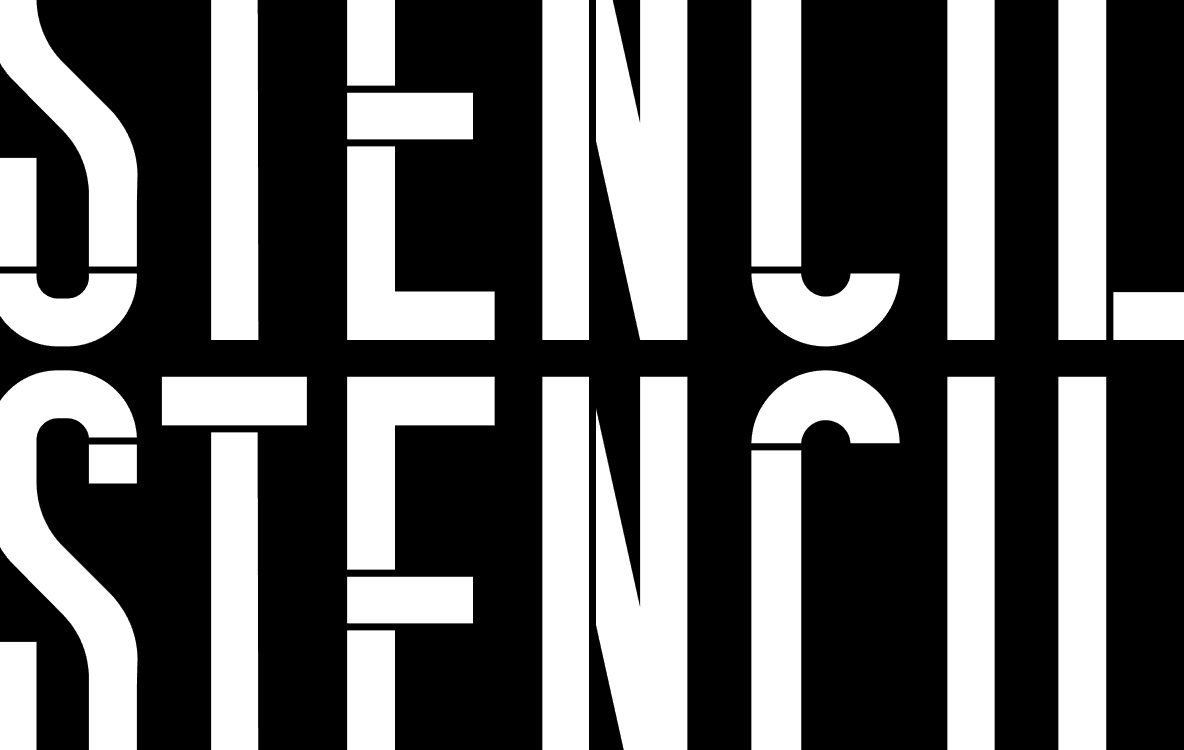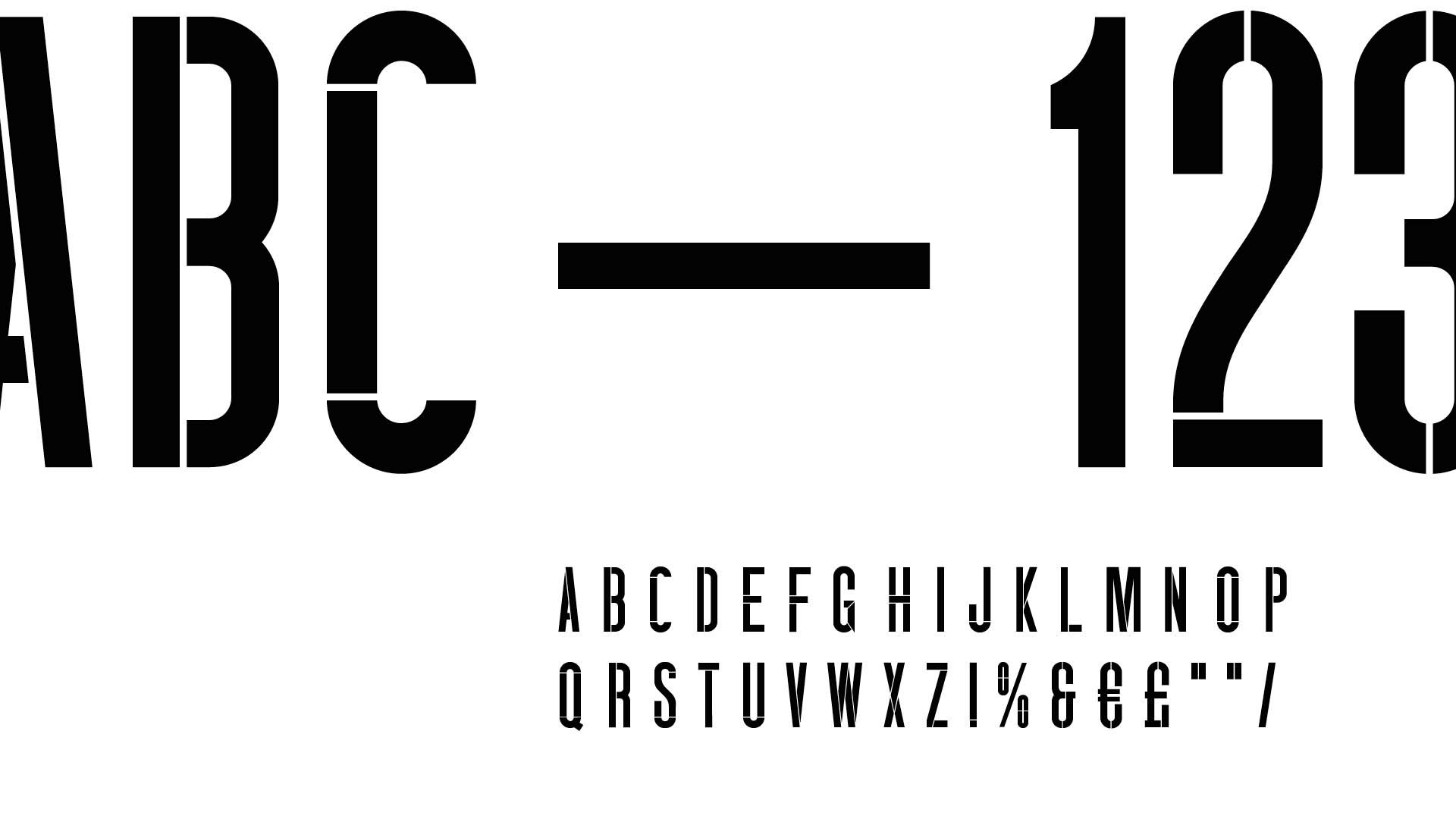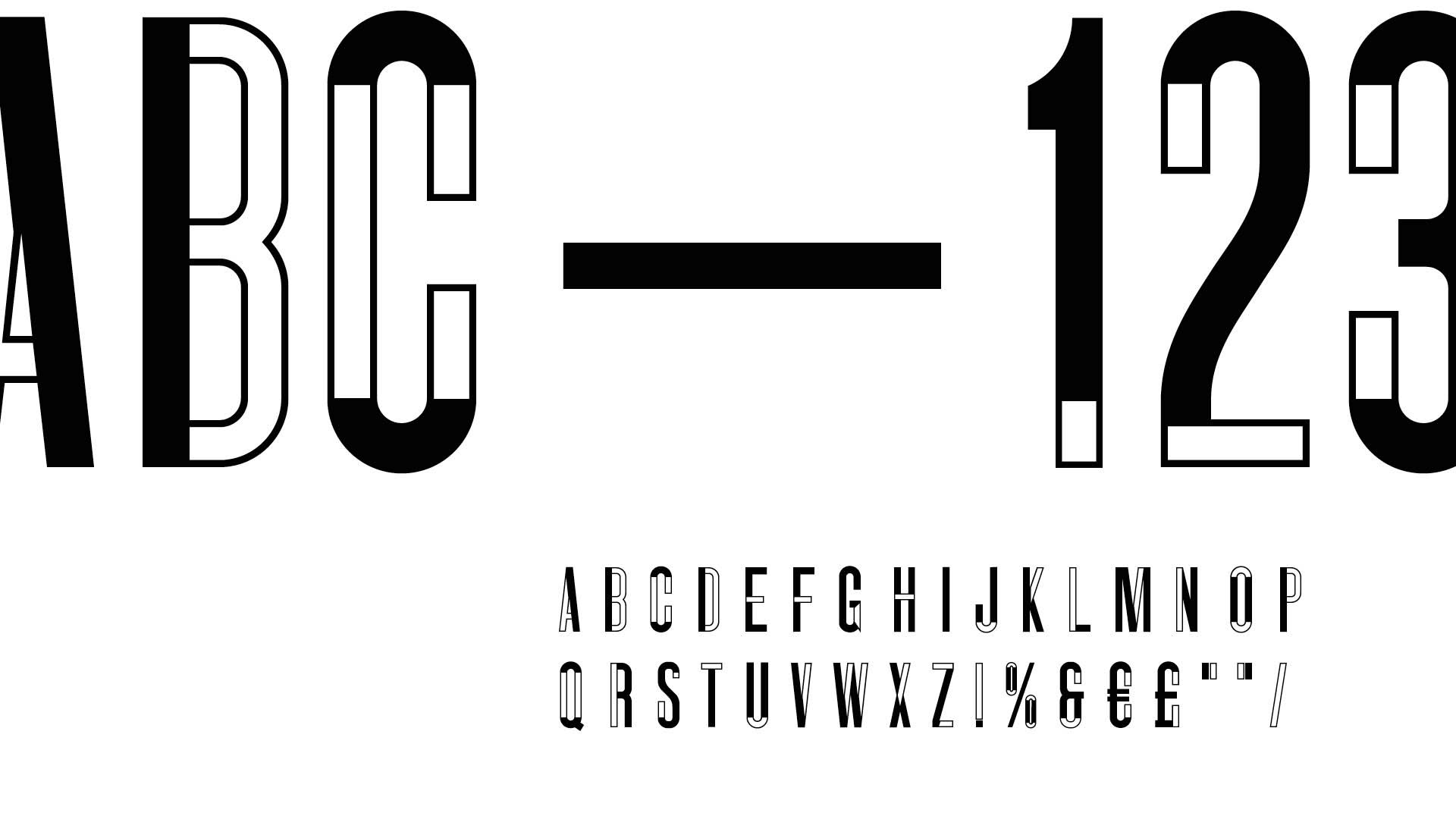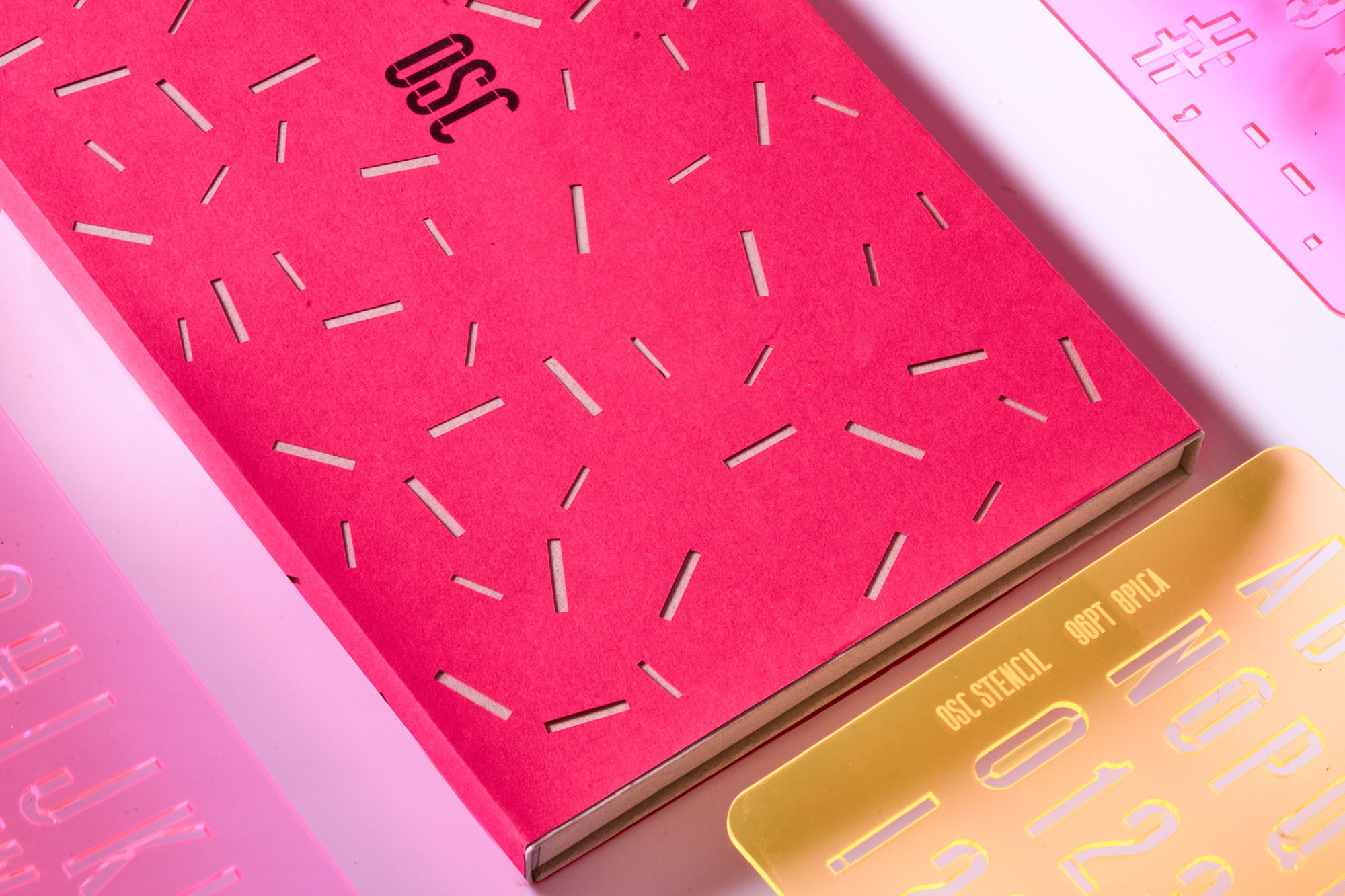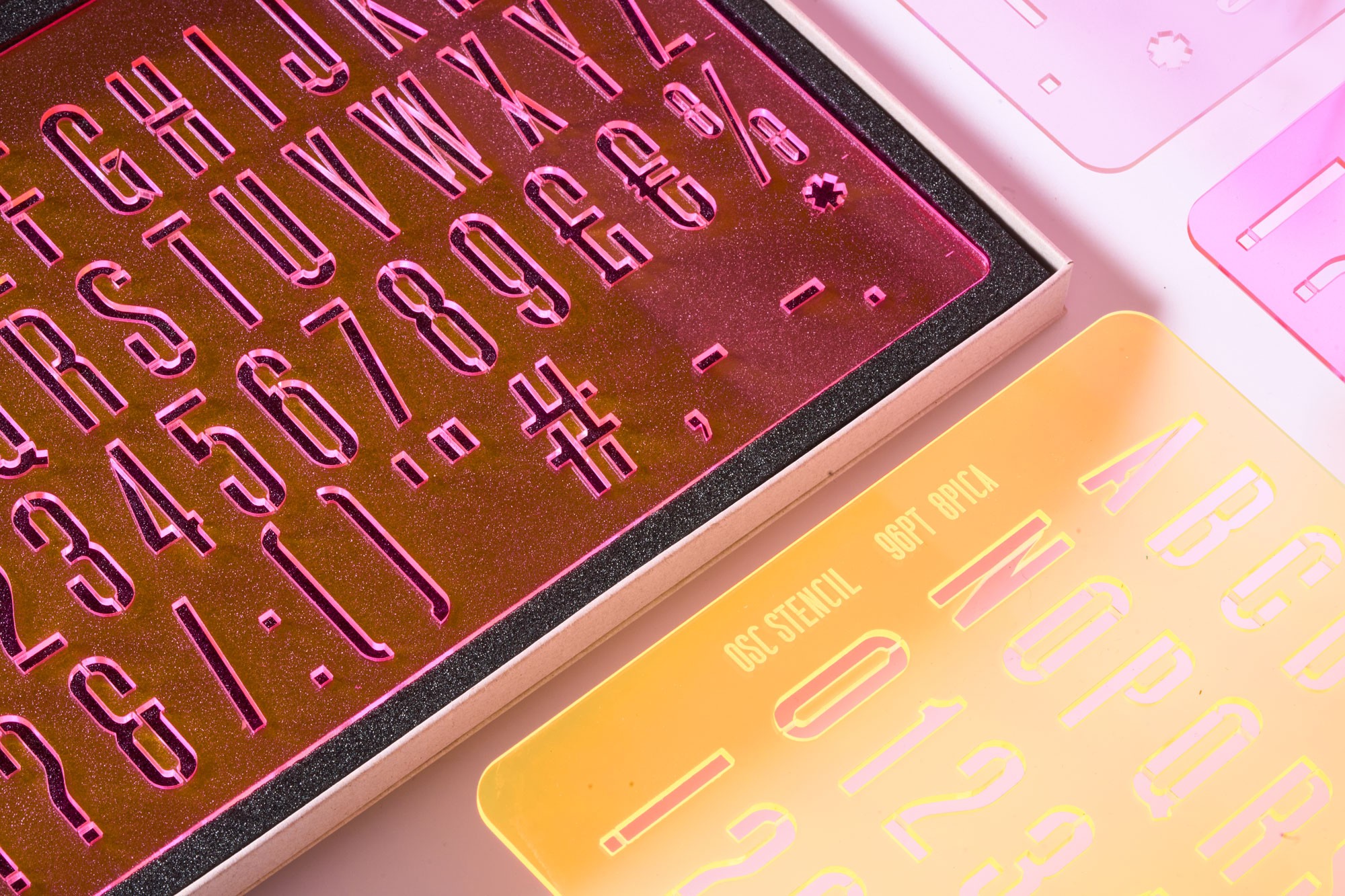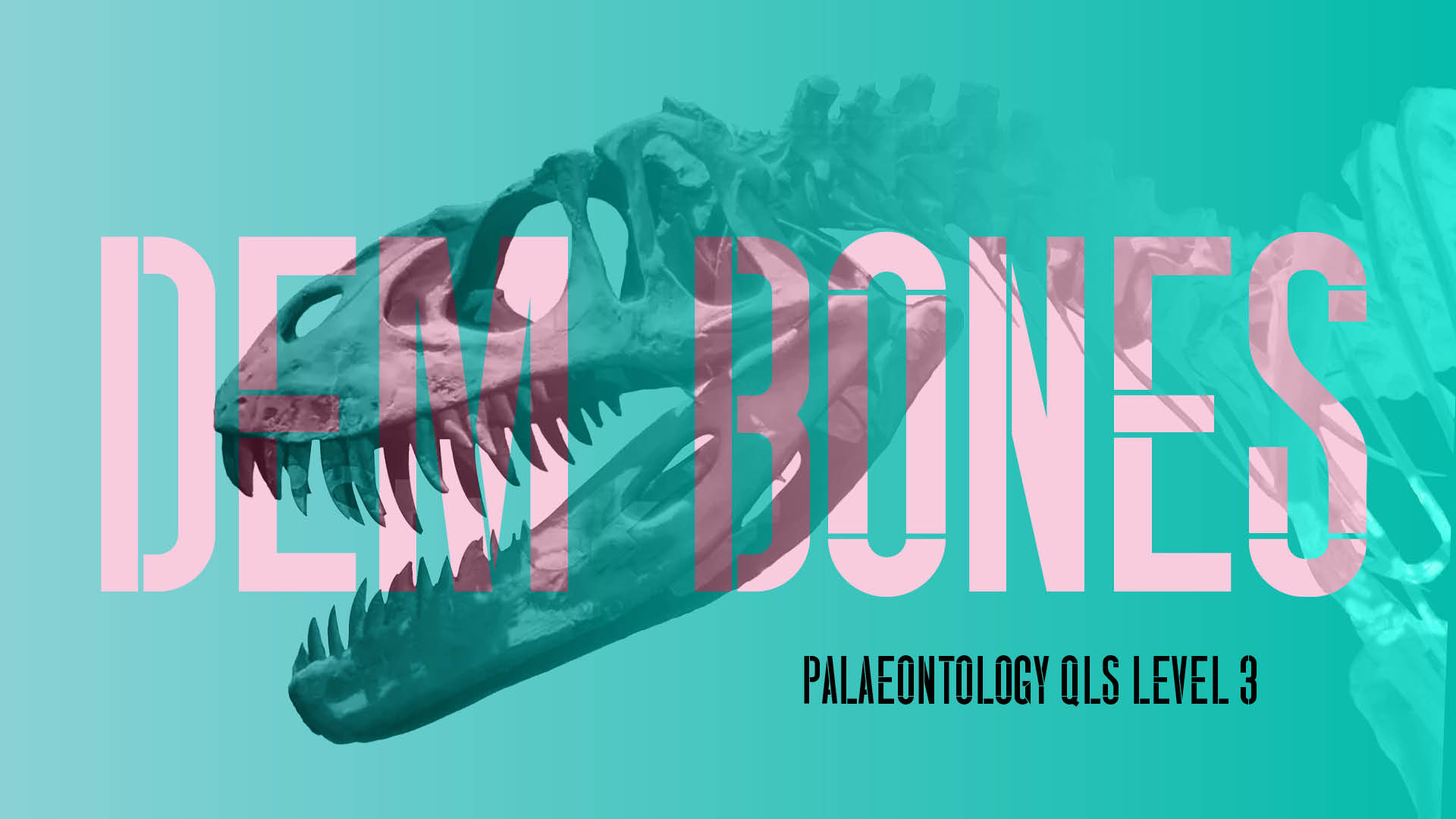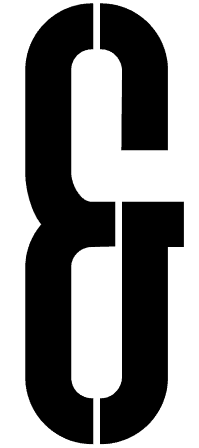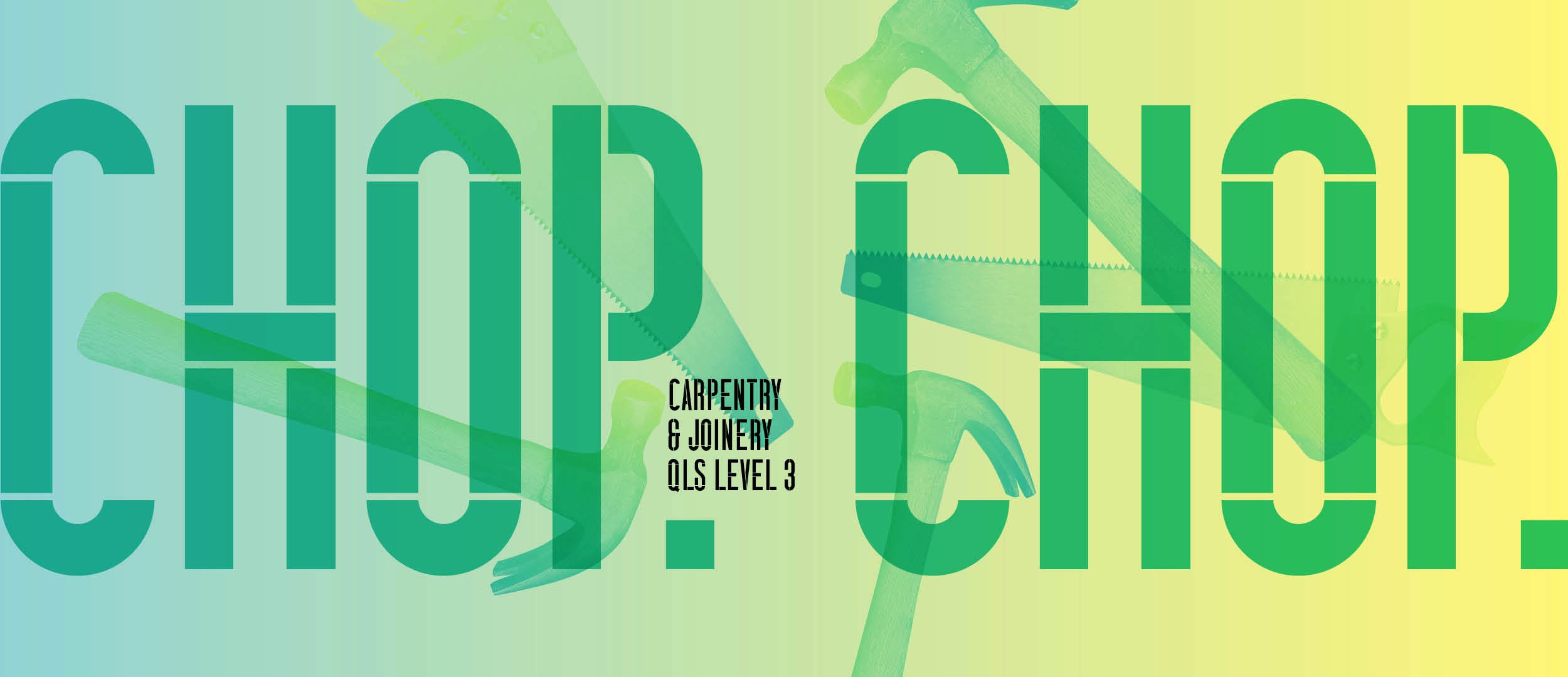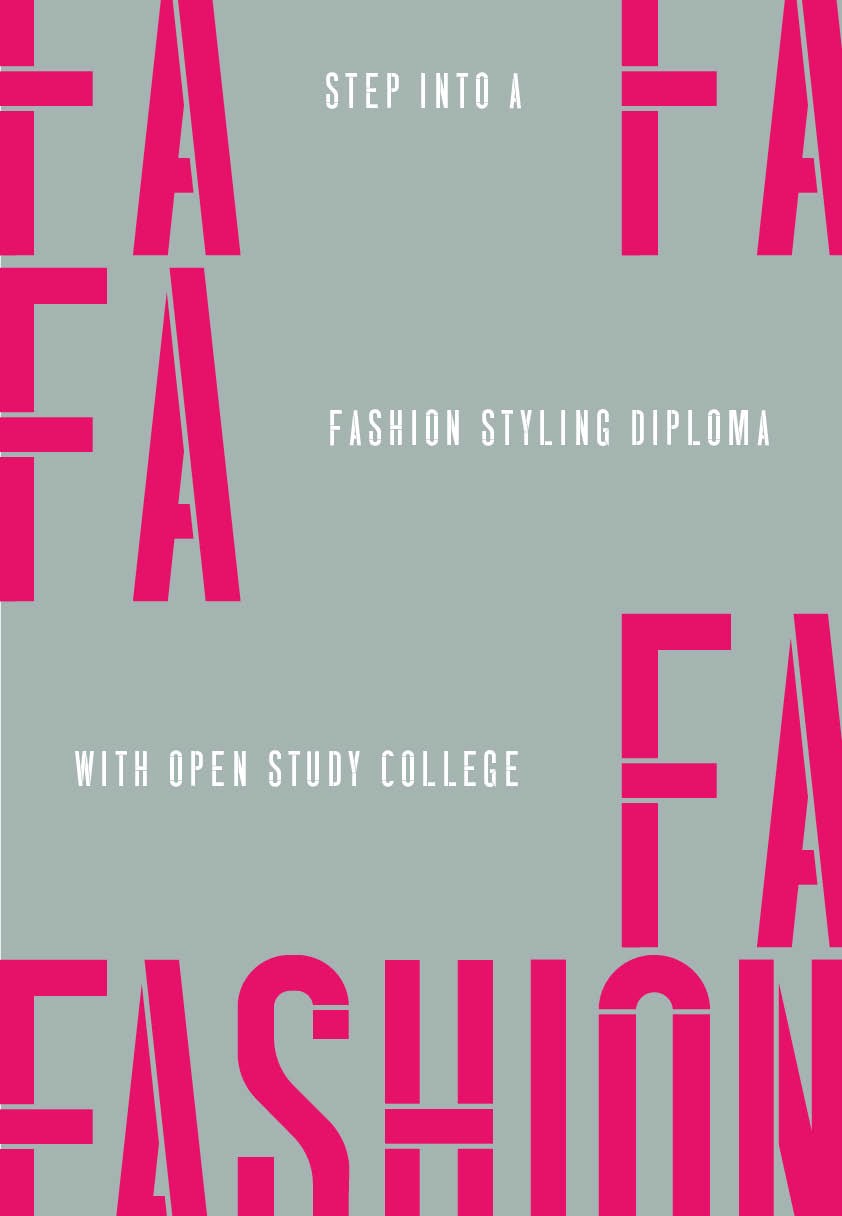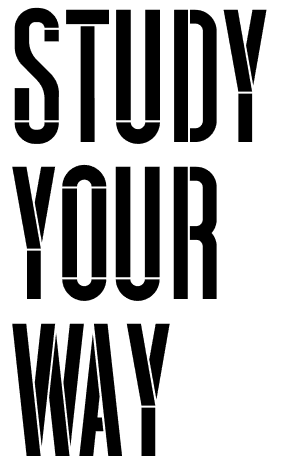
OSC Typeface
Open Study College
OSC Stencil
OSC typeface in three styles
As the college embraced a more contemporary and confident visual language, we developed a bespoke set of three complementary typefaces, each carefully crafted to align with the bold, modern tone of the refreshed branding. These fonts work individually or in combination to add energy and clarity across a wide range of touchpoints—from digital campaigns and social content to printed prospectuses and course materials.
Second variation of the typeface combining a playful mix of solid and outline shapes
Stencil
To bring the stencil typeface to life we lazer cut a physical stencil. A fun way to show all the glyphs together.
Lazer cut acrylic stencil
96 pt (8 pica)
Boxed with a lazer cut colourplan wrap